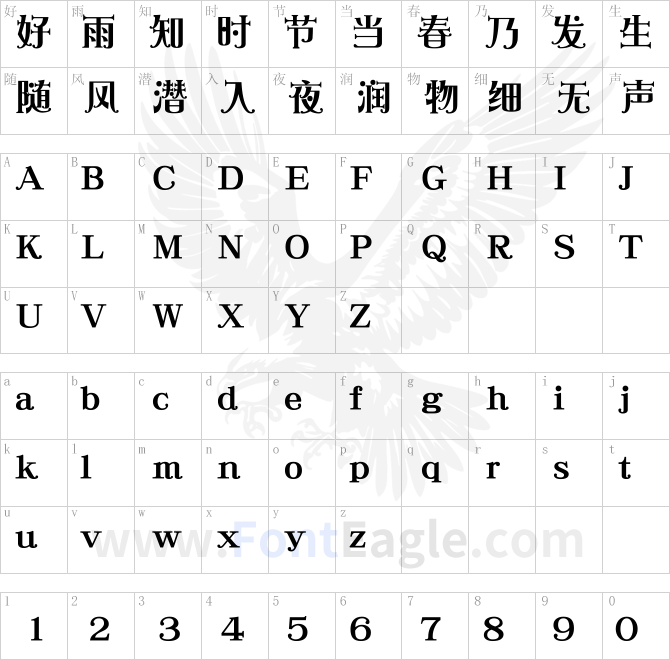
DFPShiYiW5-GB is a great font, widely used in graphic design, single-page menu design, poster design and other fields, and is deeply loved by designers.DFPShiYiW5-GB download.